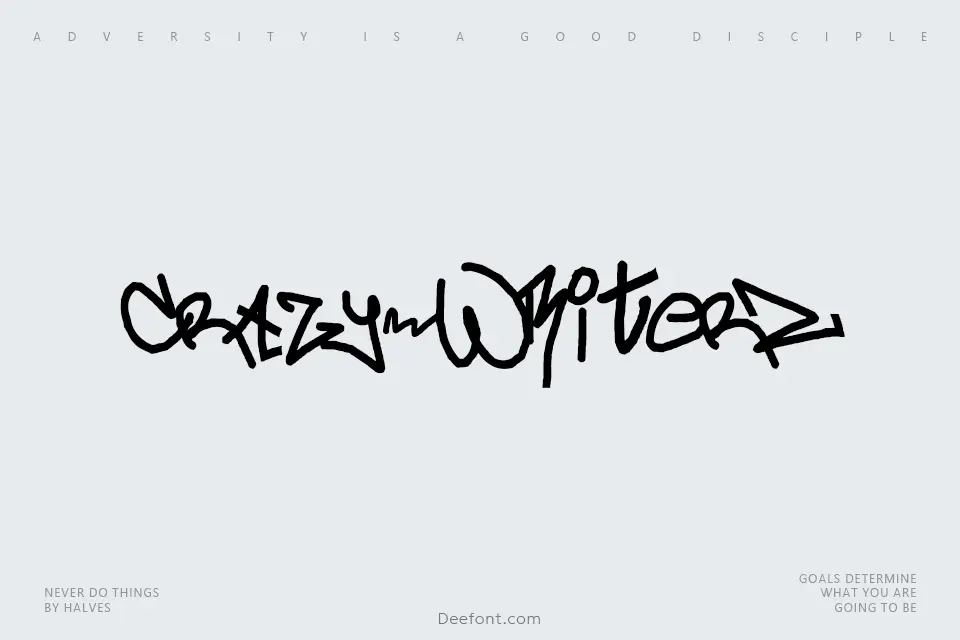
crAzy WRiterZ Font
crAzy-WRiterZ is a bold and energetic graffiti-style script font that captures the raw, rebellious spirit of street art. With its jagged, hand-drawn characters and dynamic letterforms, this typeface brings an authentic urban edge to creative projects. Perfect for headlines, posters, and eye-catching designs that demand attention and personality. The font’s expressive nature makes it ideal for music covers, street art-inspired graphics, and contemporary creative work that celebrates artistic freedom.